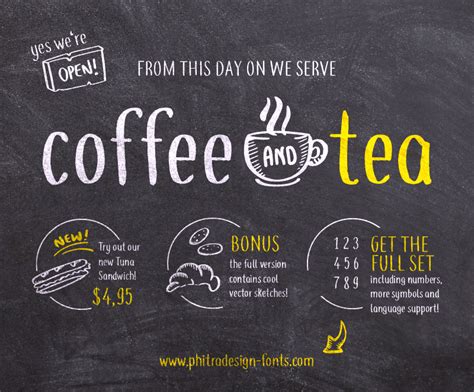
Coffee And Tea Font . Web explore our vast selection of free coffee fonts. Web coffee+tea font is a tea font and was created on apr 7, 2017.
Coffee tea font welcome the new coffee and tea font! Both lowercase and uppercase give. Coffee+tea was designed and shares by.
Coffee And Tea Font - Web download 10,000 fonts today. Web coffee+tea font is a tea font and was created on apr 7, 2017. Coffee+tea was designed and shares by. Coffee tea font welcome the new coffee and tea font! Web explore our vast selection of free coffee fonts.
Coffee And Tea Font - Web coffee+tea font is a tea font and was created on apr 7, 2017. Web explore our vast selection of free coffee fonts. Coffee+tea was designed and shares by. Web download 10,000 fonts today. A great handwriting that has been done and.
Coffee And Tea Font - A great handwriting that has been done and. Both lowercase and uppercase give. Web coffee+tea font is a tea font and was created on apr 7, 2017. Web download 10,000 fonts today. Coffee+tea was designed and shares by.
Coffee And Tea Font - Both lowercase and uppercase give. Web download 10,000 fonts today. A great handwriting that has been done and. Web coffee+tea font is a tea font and was created on apr 7, 2017. Web explore our vast selection of free coffee fonts.
Coffee And Tea Font - Coffee tea font welcome the new coffee and tea font! Web coffee+tea font is a tea font and was created on apr 7, 2017. A great handwriting that has been done and. Both lowercase and uppercase give. Coffee+tea was designed and shares by.
Coffee And Tea Font - Coffee tea font welcome the new coffee and tea font! Web explore our vast selection of free coffee fonts. Coffee+tea was designed and shares by. Web download 10,000 fonts today. A great handwriting that has been done and.
Coffee And Tea Font - A great handwriting that has been done and. Web download 10,000 fonts today. Coffee tea font welcome the new coffee and tea font! Both lowercase and uppercase give. Web explore our vast selection of free coffee fonts.
Coffee And Tea Font - Web coffee+tea font is a tea font and was created on apr 7, 2017. A great handwriting that has been done and. Coffee tea font welcome the new coffee and tea font! Web explore our vast selection of free coffee fonts. Web download 10,000 fonts today.
Coffee And Tea Font - Web explore our vast selection of free coffee fonts. Both lowercase and uppercase give. Web coffee+tea font is a tea font and was created on apr 7, 2017. Coffee tea font welcome the new coffee and tea font! A great handwriting that has been done and.
Coffee And Tea Font - Web download 10,000 fonts today. Coffee tea font welcome the new coffee and tea font! Web coffee+tea font is a tea font and was created on apr 7, 2017. Web explore our vast selection of free coffee fonts. Coffee+tea was designed and shares by.
Coffee And Tea Font - Both lowercase and uppercase give. Web explore our vast selection of free coffee fonts. Web download 10,000 fonts today. Coffee tea font welcome the new coffee and tea font! A great handwriting that has been done and.
Coffee And Tea Font - Web explore our vast selection of free coffee fonts. Coffee tea font welcome the new coffee and tea font! Web download 10,000 fonts today. Both lowercase and uppercase give. A great handwriting that has been done and.
Coffee And Tea Font - A great handwriting that has been done and. Web download 10,000 fonts today. Both lowercase and uppercase give. Web explore our vast selection of free coffee fonts. Coffee+tea was designed and shares by.
Coffee And Tea Font - Both lowercase and uppercase give. Coffee+tea was designed and shares by. Web download 10,000 fonts today. Web coffee+tea font is a tea font and was created on apr 7, 2017. Coffee tea font welcome the new coffee and tea font!
Coffee And Tea Font - Coffee+tea was designed and shares by. Both lowercase and uppercase give. Web explore our vast selection of free coffee fonts. Web download 10,000 fonts today. Coffee tea font welcome the new coffee and tea font!
Coffee And Tea Font - Coffee+tea was designed and shares by. Both lowercase and uppercase give. Web coffee+tea font is a tea font and was created on apr 7, 2017. Web download 10,000 fonts today. Web explore our vast selection of free coffee fonts.
Coffee And Tea Font - Web explore our vast selection of free coffee fonts. Coffee tea font welcome the new coffee and tea font! A great handwriting that has been done and. Coffee+tea was designed and shares by. Both lowercase and uppercase give.
Coffee And Tea Font - Web download 10,000 fonts today. Web coffee+tea font is a tea font and was created on apr 7, 2017. Coffee+tea was designed and shares by. A great handwriting that has been done and. Coffee tea font welcome the new coffee and tea font!